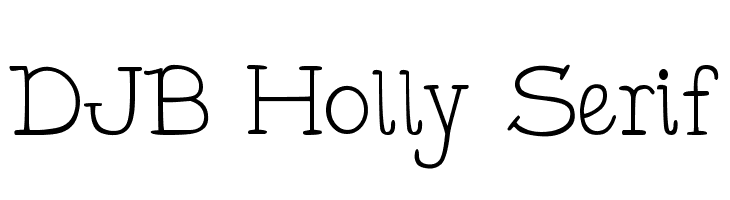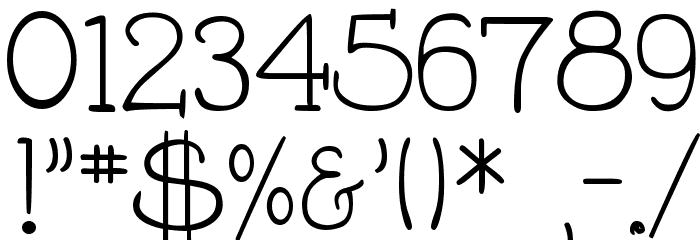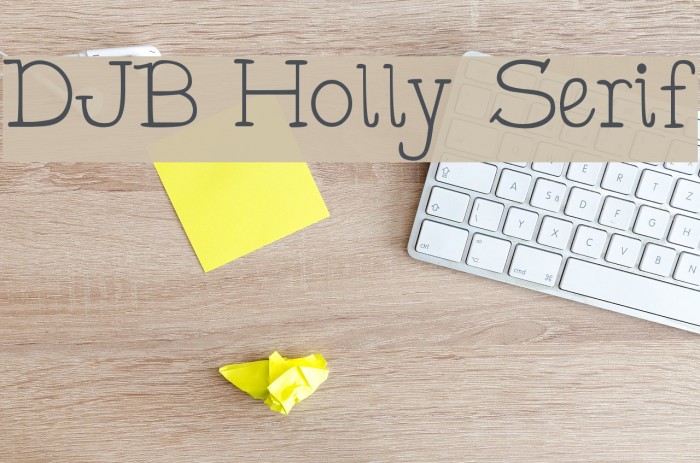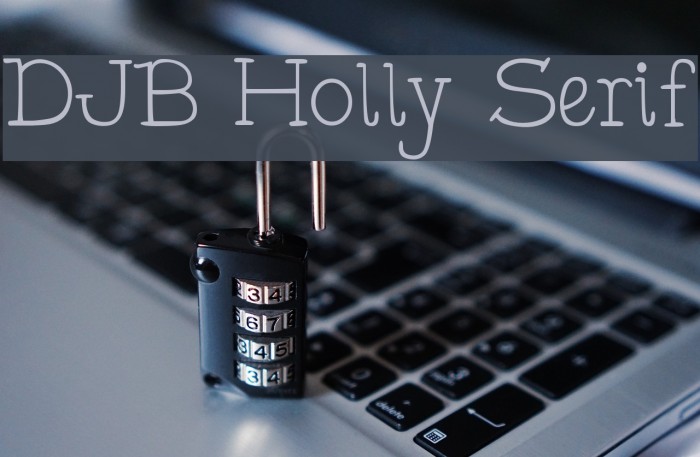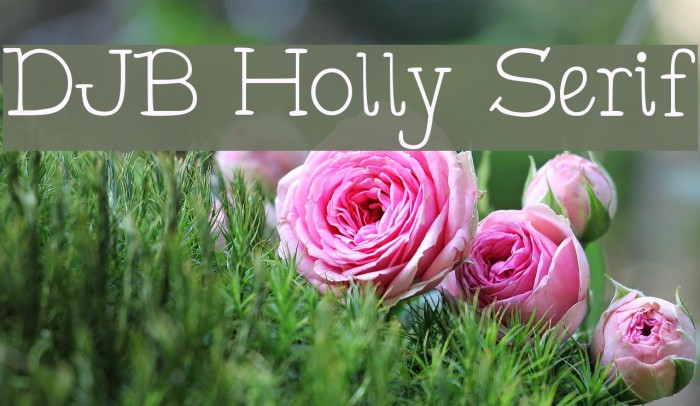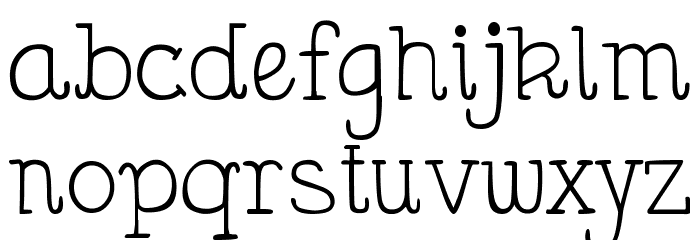
DJB Holly Serif Font
This font features a playful and whimsical design with a handwritten feel. The characters are slightly irregular, adding a charming and informal touch. The uppercase letters are bold and stand out with their unique curves and loops, while the lowercase letters maintain a consistent style with rounded edges and a friendly appearance. The numerals are clear and easy to read, complementing the overall style. Special characters are creatively designed, enhancing the font's playful nature. This font is perfect for projects that require a personal and approachable aesthetic.
A playful, handwritten-style font with a whimsical and informal design.
• Proposed Projects: Ideal for greeting cards, children's books, playful branding, and casual invitations.